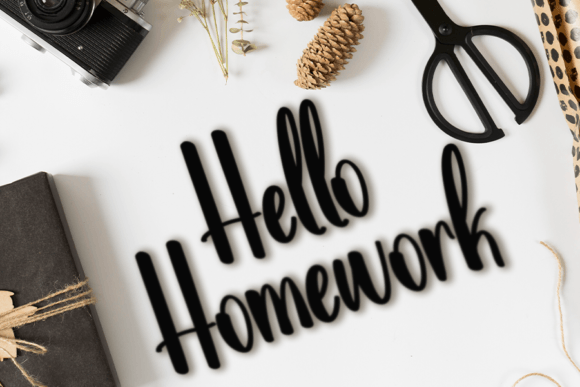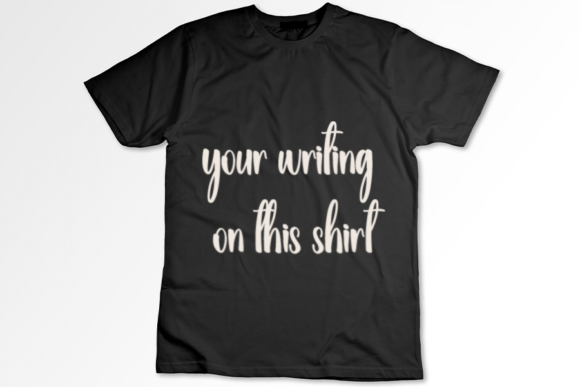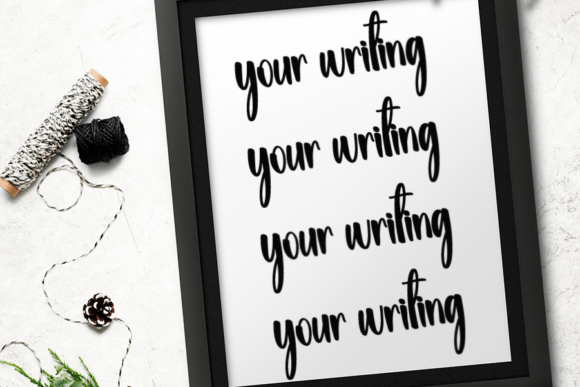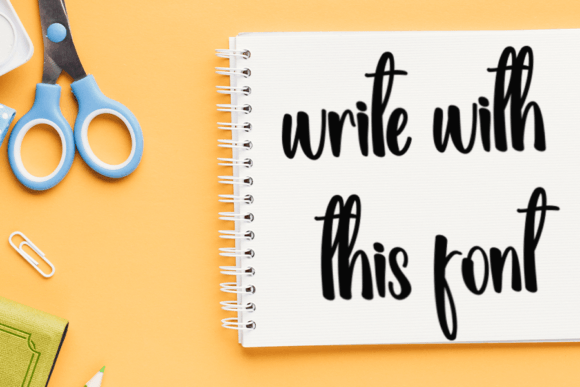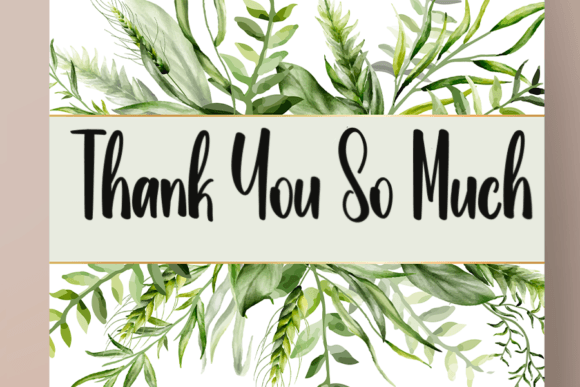
Handwriting Font
About Handwriting Font Download
The Handwriting Font Download is a simple and friendly handwritten script created to bring charm and creativity to any project. With smooth lines and a casual handwritten flow, this typeface combines approachability with versatility. Because of its natural look, Handwriting is perfect for crafts, greeting cards, branding, and digital design.
A Simple Handwritten Script with Style
Handwriting captures the authenticity of handwritten text while keeping every letter clean and professional. Unlike decorative fonts that may be harder to read, this Handwriting script font strikes a balance between simplicity and warmth. As a result, it is suitable for both personal projects and professional branding.
Perfect for Crafts and Greeting Cards
Designers and crafters often need fonts that feel personal and welcoming. The Handwriting Font is excellent for invitations, thank you notes, scrapbooking, and DIY designs. Moreover, its natural style makes every card or craft project more meaningful.
Branding and Packaging with Handwriting Font
Typography is essential in shaping brand identity. The Handwriting handwritten font works beautifully for boutique logos, product labels, and packaging. In addition, it gives businesses a friendly, creative identity that customers can connect with.
Posters, Titles, and Headlines
Large designs require fonts that can stand out while staying clear. The Handwriting Font Download is an excellent choice for posters, banners, and magazine covers. At the same time, it maintains readability in smaller text, making it reliable for multiple contexts.
Handwriting adapts seamlessly to online platforms. For example, the Handwriting typeface is perfect for Instagram posts, Pinterest graphics, YouTube thumbnails, and blog headers. Because of its simplicity, it ensures your digital presence feels consistent and approachable.
Why Designers Choose Handwriting Typeface
Designers prefer fonts that are versatile and easy to use. Many handwritten styles lose clarity in small text, but the Handwriting handwritten script remains legible while keeping its charm. This makes it a practical option for both hobbyists and professionals.
Add Simplicity and Warmth to Your Designs Today
If you are looking for a handwritten script that feels simple, friendly, and versatile, the Handwriting Font Download is the right choice. From greeting cards and crafts to posters and social media graphics, it brings personality and creativity to any project. Finally, download Handwriting today and make your designs truly stand out.